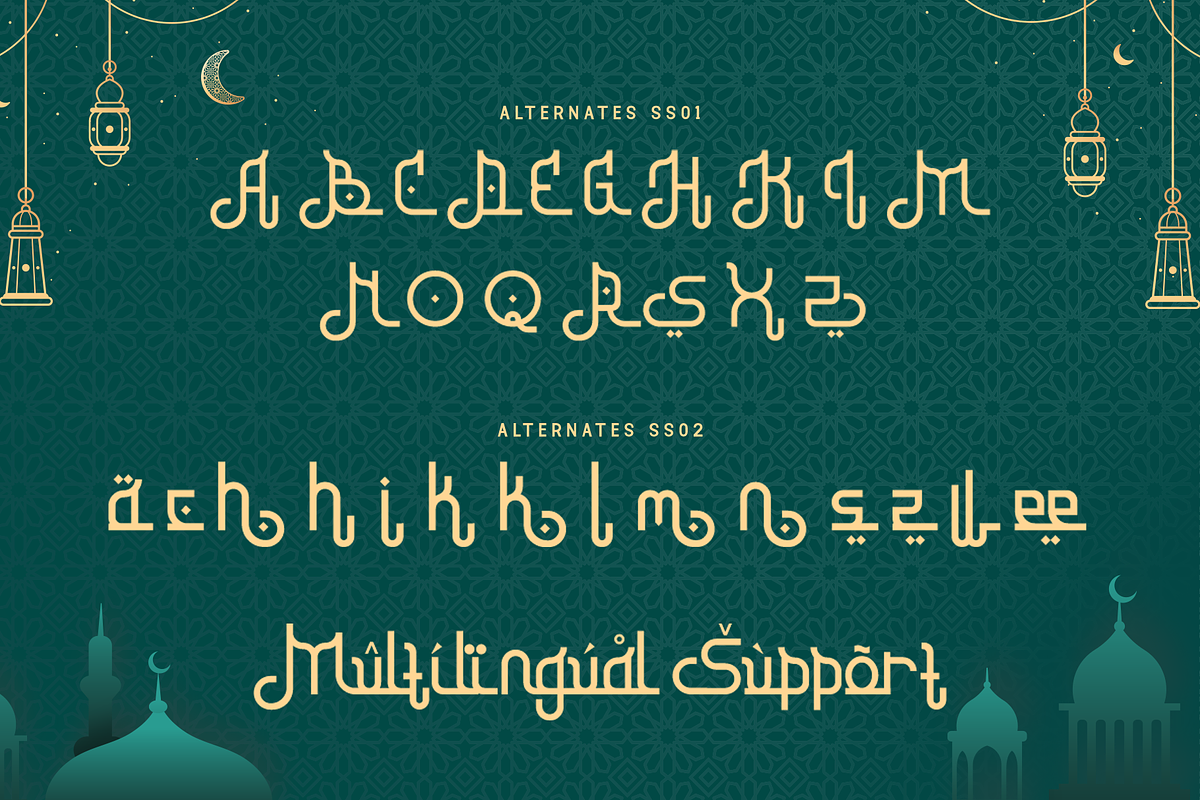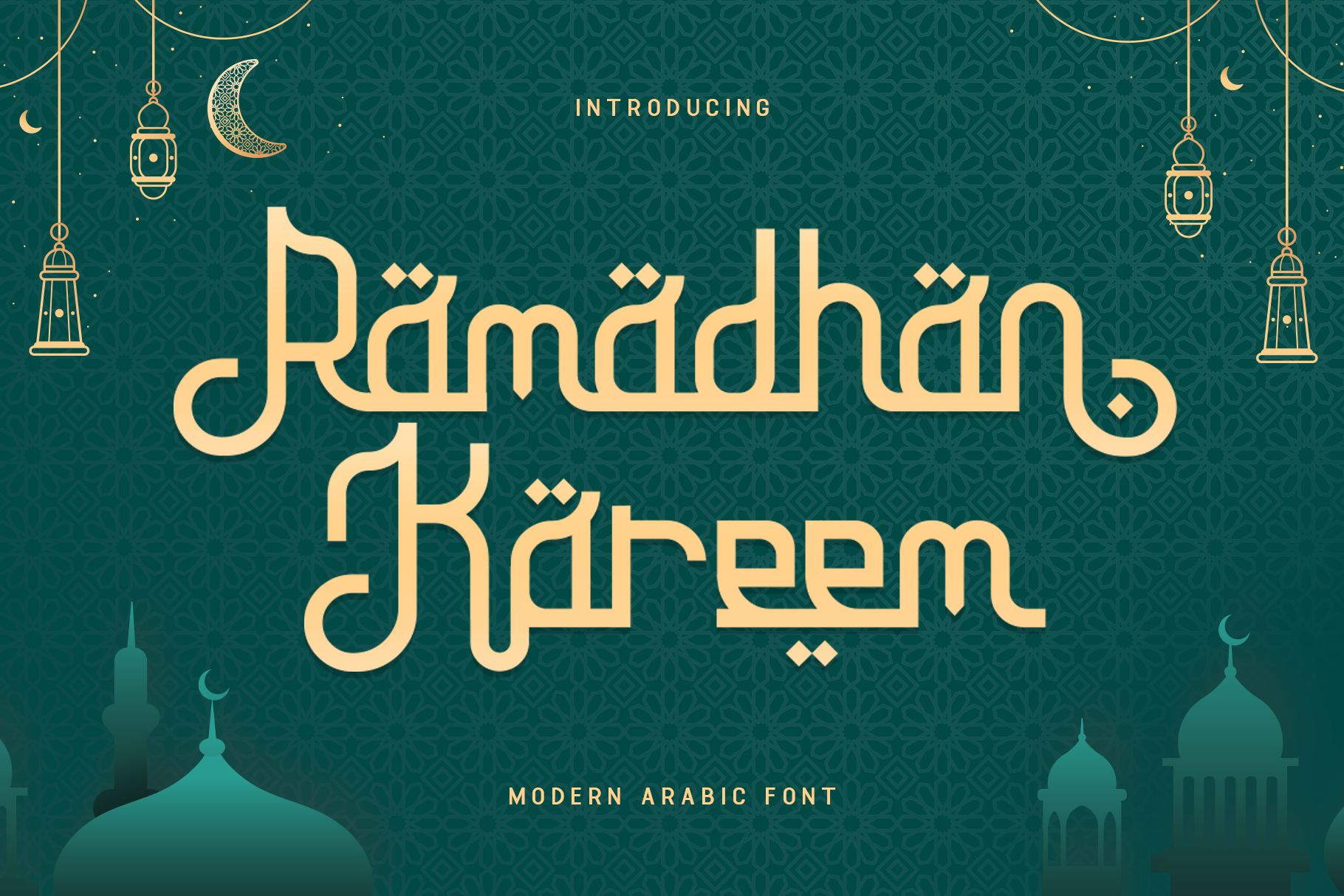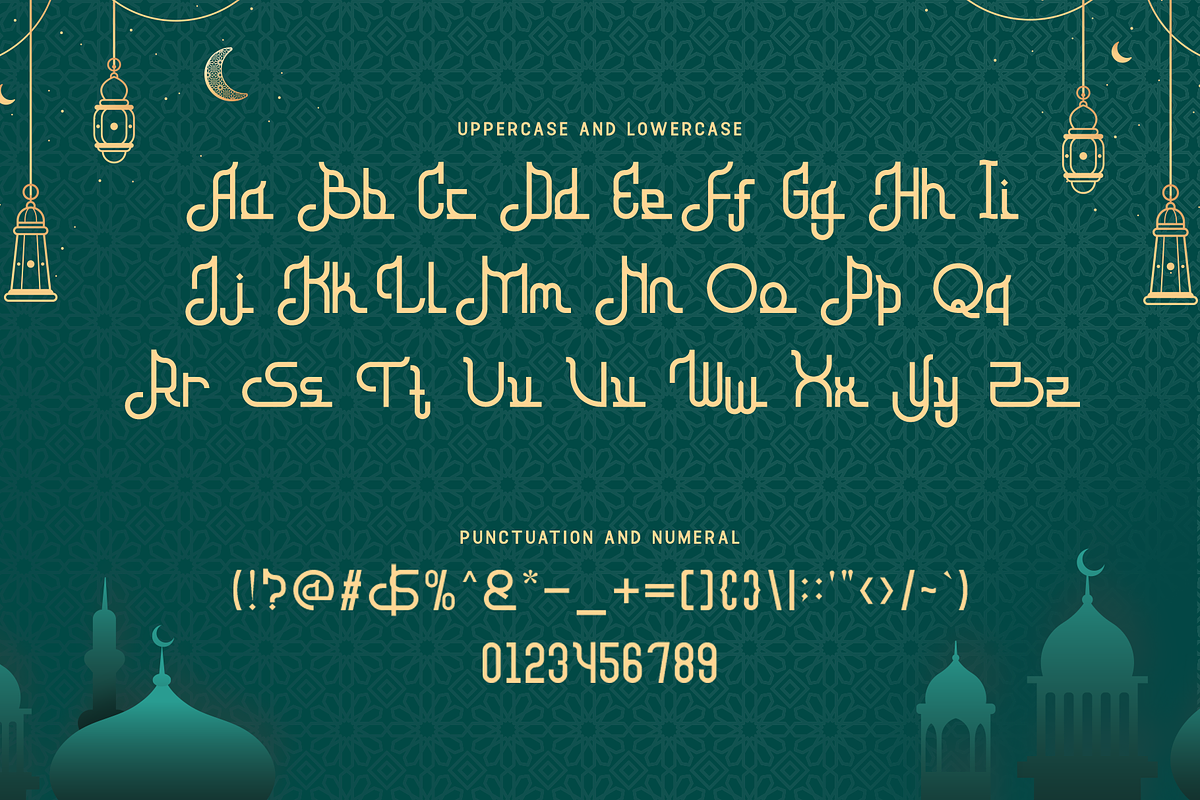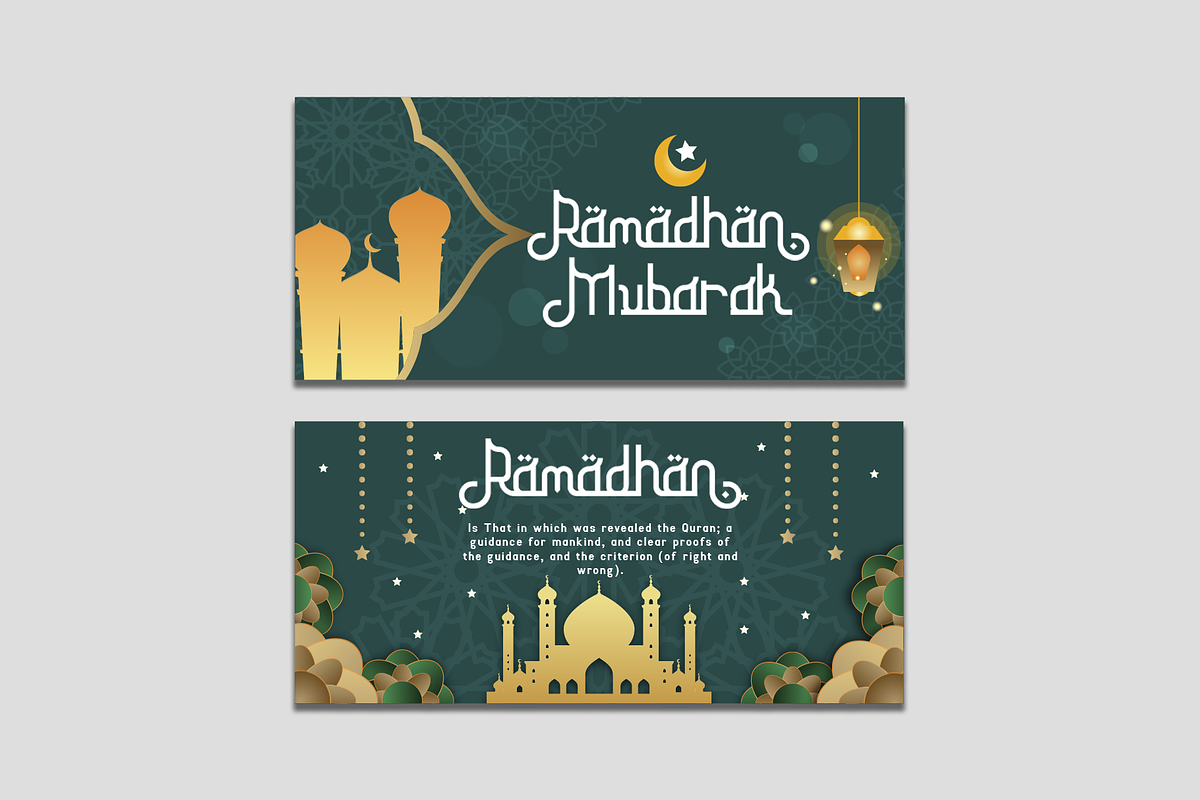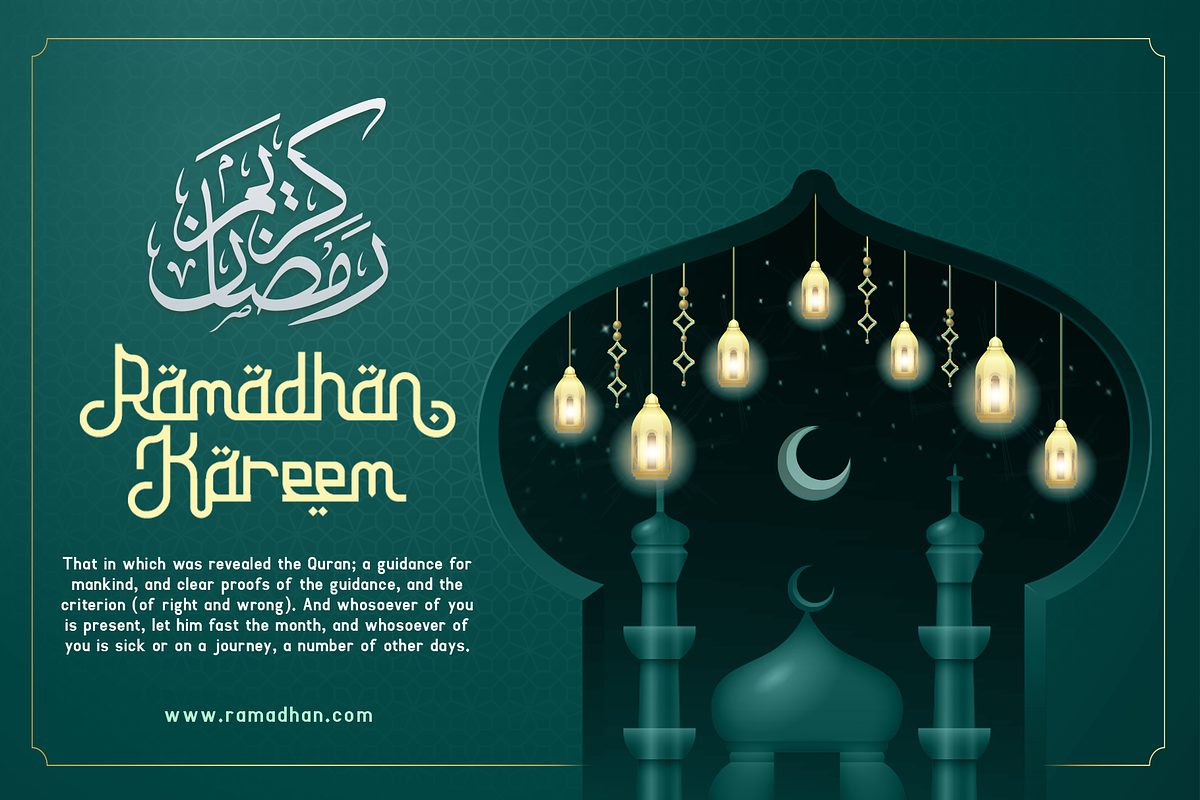
Ramadhan Kareema-Modern Arabic Font
Ramadhan Kareema - Modern Arabic Font
Ramadhan Kareema is a beautifully crafted modern Arabic font that blends tradition with contemporary design. This font is perfect for creating stunning headlines, invitations, and branding materials that require a touch of elegance and cultural richness. Its fluid strokes and intricate detailing make Ramadhan Kareema a versatile choice for various design projects, whether digital or print.
Designed with a deep appreciation for Arabic calligraphy, Ramadhan Kareema captures the essence of traditional script while introducing modern elements for a fresh look. The font’s clean and refined lines ensure readability and visual appeal, making it suitable for both formal and creative applications. Use it to enhance your Ramadan-themed designs, religious publications, or any project that calls for an authentic Arabic touch.
Embrace the spirit of Ramadan with Ramadhan Kareema, a font that symbolizes grace, tradition, and modernity. Its unique design and cultural significance make it an essential tool for designers looking to create impactful and meaningful work. Elevate your designs with Ramadhan Kareema and celebrate the beauty of Arabic typography in a contemporary style.